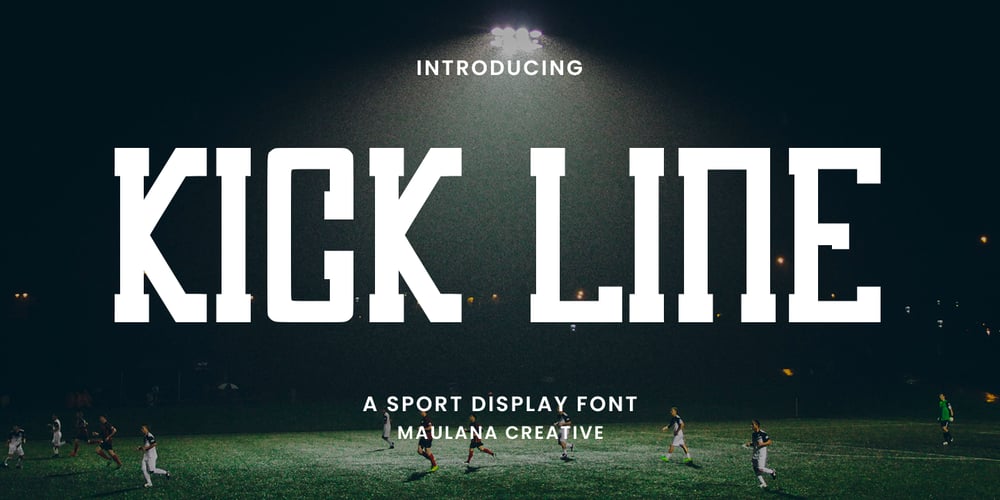
MC Kick Line Font Family was designed by Gilang Maulana and published by Maulana Creative. MC Kick Line contains 1 styles and family package options. Kick Line is a sport display font. To give you an extra creative work. Kick Line font support multilingual language. This font is good for logo design, Social media, Movie Titles, Books Titles, a short text even a long text letter and good for your secondary text font with script or serif. Make a stunning work with Kick Line font.